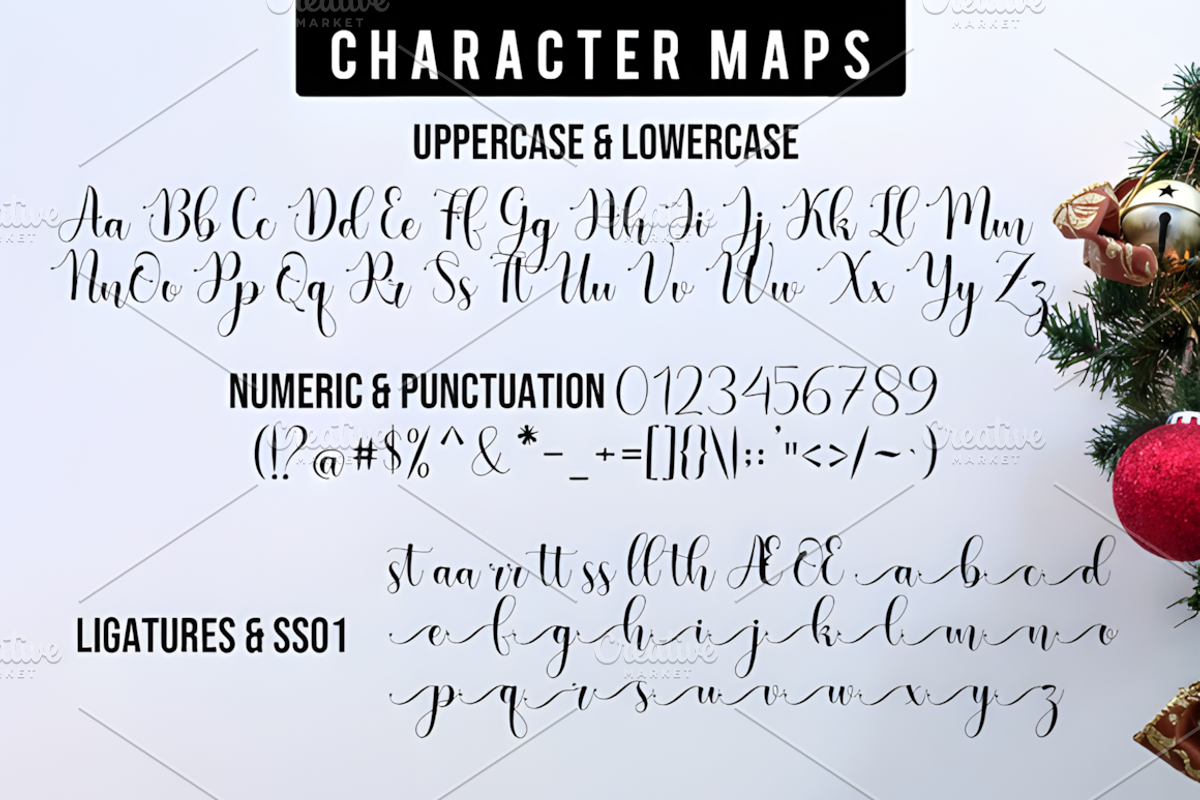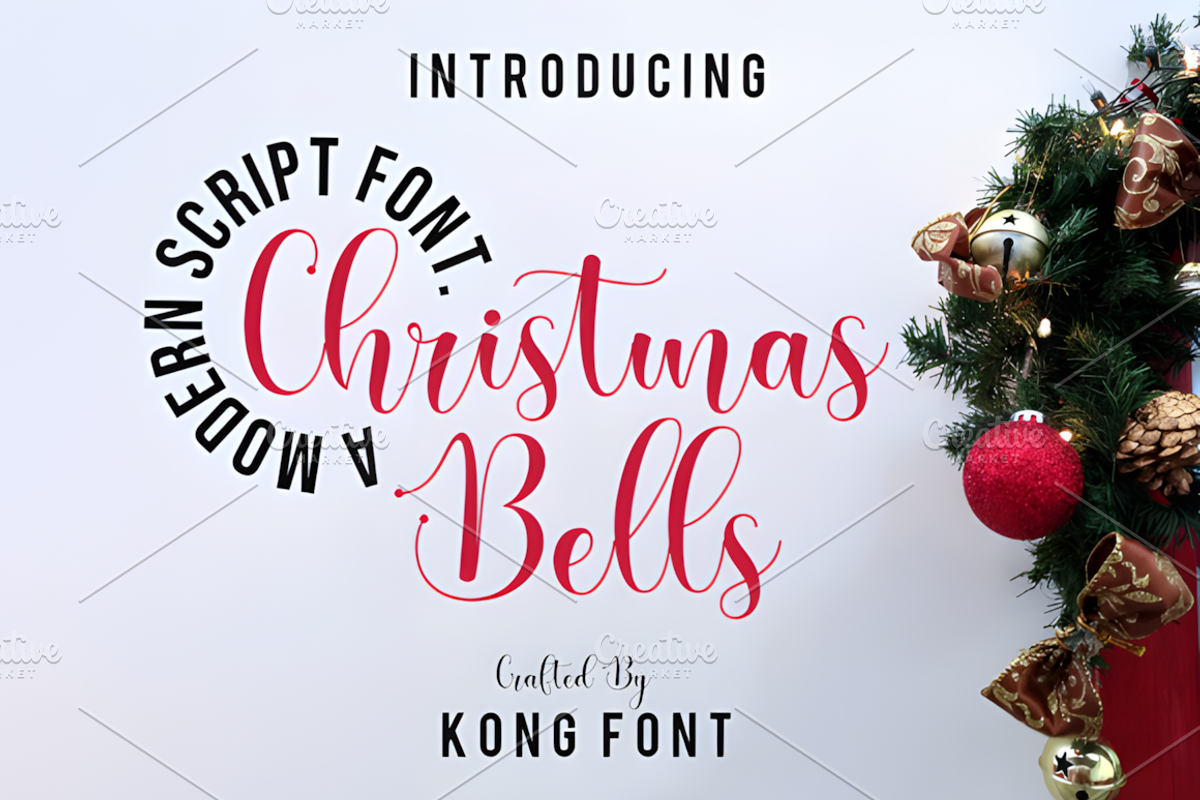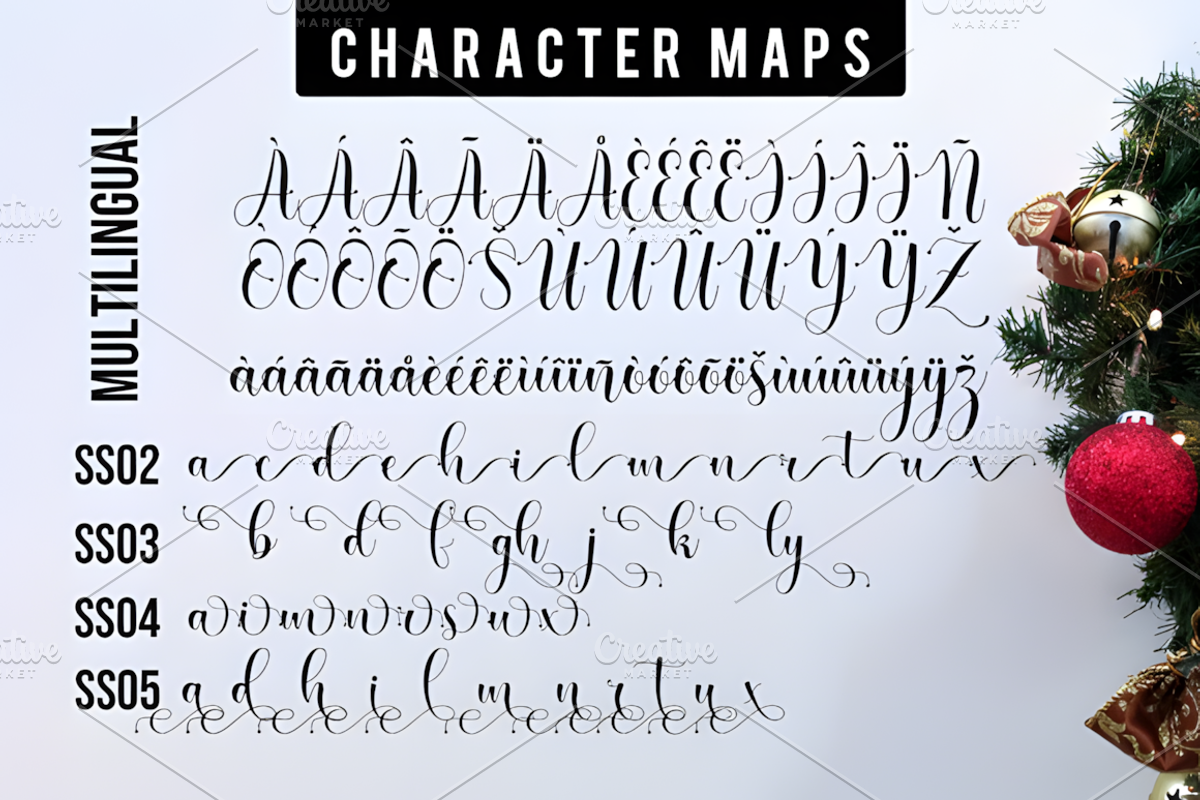
Christmas Bells Font
Christmas Bells is a modern and playful handwritten script font designed to add charm, warmth, and creativity to any project. Its smooth strokes and cheerful style make it perfect for holiday-themed designs, greeting cards, invitations, gift tags, mugs, t-shirts, stickers, social media graphics, and seasonal branding. This versatile font is easy to use and works seamlessly with popular design software, including Photoshop, Canva, Cricut Design Space, Silhouette Studio, and more. Whether you're a professional designer or a crafting enthusiast, Christmas Bells brings a fun and festive touch to your creations. Created by Kong Font Studio, this font is ideal for creative and joyful projects.